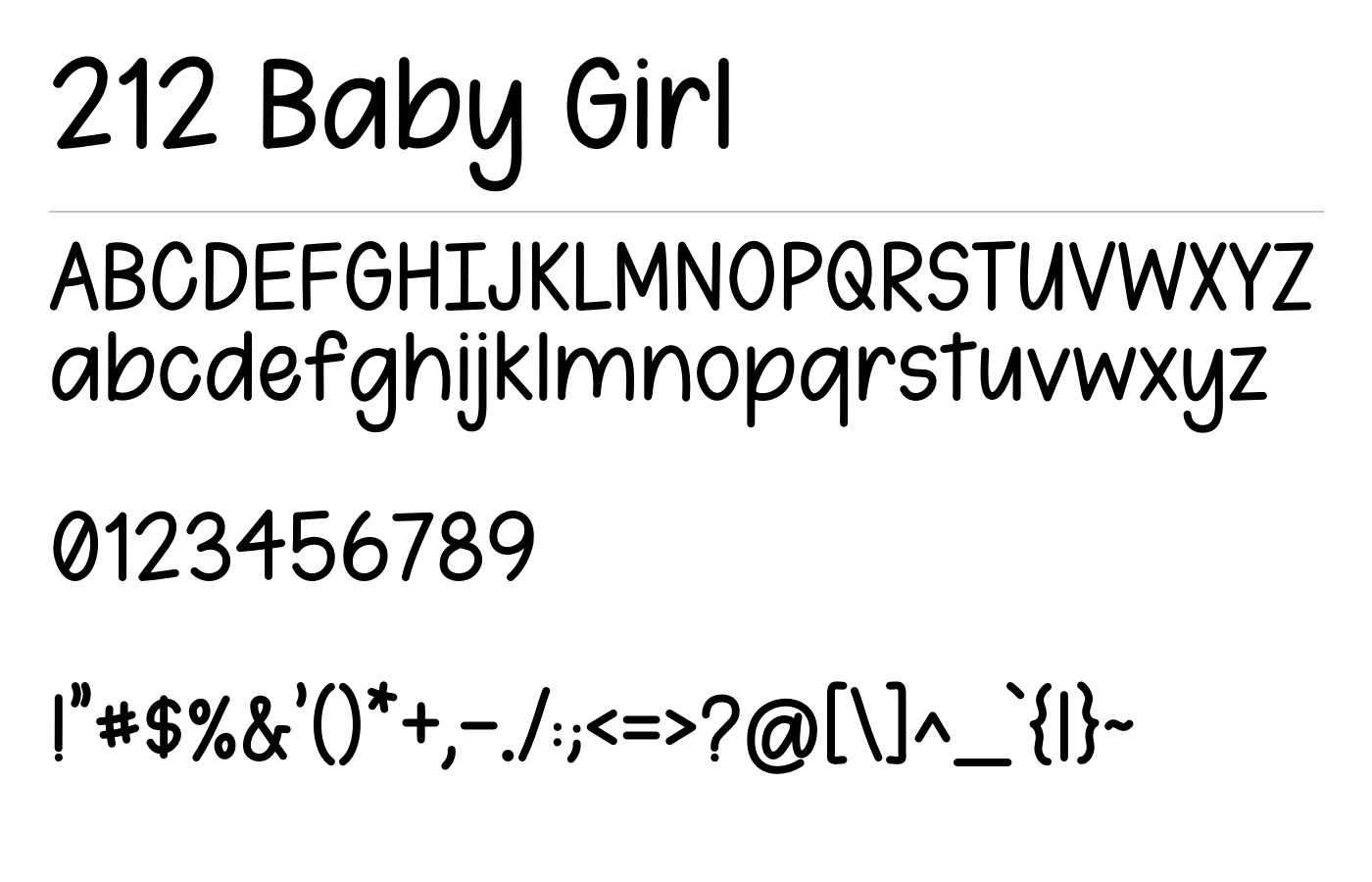
212 Baby Girl is a playful and casual sans serif font with a friendly handwritten style that features rounded, slightly irregular letterforms creating a warm and approachable feel. Its medium weight and balanced x-height make it highly legible and versatile, ideal for children’s products, informal branding, and fun editorial projects. This font works well where a personal, cheerful touch is needed without compromising readability.
212 Baby Girl Font
About 212 Baby Girl Font
| Font family | 212 Baby Girl Font |
| Designer | Elizabeth McLain |